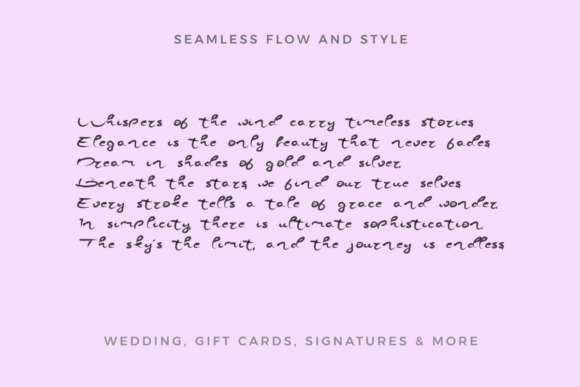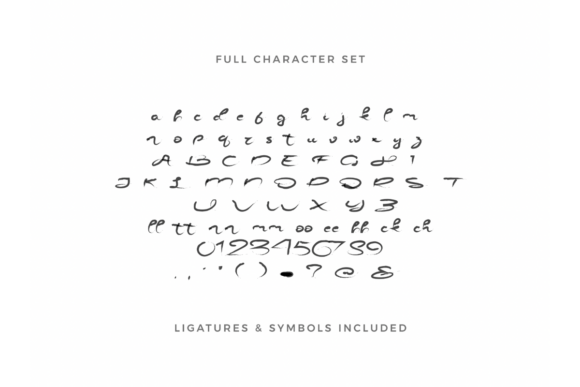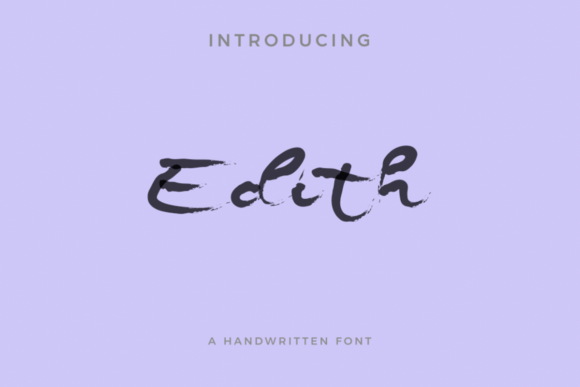
Discover the Charm of Edith Font: A Captivating Handwritten Script Font
Are you tired of using the same old fonts for your designs? Look no further than Edith Font, a beautiful handwritten script font that is sure to add a touch of elegance and charm to any project. With its unique and inviting aura, Edith Font is the perfect choice for designers and crafters looking to create something truly special.
The Story Behind Edith Font
Edith Font is a hand-lettered masterpiece that has been carefully crafted to bring a warm and inviting feel to any design. The font’s creator has poured their heart and soul into every stroke, resulting in a truly unique and delightful script font that is sure to capture the attention of your audience.
What Sets Edith Font Apart
So, what makes Edith Font so special? For starters, its hand-lettered design gives it a personal and intimate feel that is hard to replicate with digital fonts. The lovingly designed strokes of Edith Font bring a sense of warmth and personality to any design, making it perfect for projects that require a touch of elegance and sophistication.
Features of Edith Font
• Handwritten Script Font: Edith Font is a true handwritten script font, with each letter carefully crafted to create a unique and inviting aura.
• Unique and Delightful: With its hand-lettered design, Edith Font is a true one-of-a-kind font that is sure to add a touch of personality to any design.
• Warm and Inviting: The lovingly designed strokes of Edith Font bring a sense of warmth and personality to any design, making it perfect for projects that require a touch of elegance and sophistication.
• Elegant and Sophisticated: Edith Font is the perfect choice for designers and crafters looking to create something truly special and eye-catching.
Uses for Edith Font
Edith Font is a versatile font that can be used for a wide range of projects, including:
• Wedding Invitations: Add a touch of elegance and sophistication to your wedding invitations with Edith Font.
• Branding and Packaging: Use Edith Font to create unique and eye-catching branding and packaging for your business.
• Stationery and Cards: Add a personal touch to your stationery and cards with Edith Font.
• Digital Designs: Use Edith Font to add a touch of personality to your digital designs, such as social media graphics and website headers.
Tips for Using Edith Font
Here are a few tips for getting the most out of Edith Font:
• Use it Sparingly: Edith Font is a statement font, so use it sparingly to add emphasis and personality to your designs.
• Experiment with Colors: Try pairing Edith Font with different colors to create a unique and eye-catching look.
• Mix and Match: Don’t be afraid to mix and match Edith Font with other fonts to create a unique and interesting look.
Edith Font is a truly unique and captivating handwritten script font that is sure to add a touch of elegance and charm to any design. With its hand-lettered design and lovingly crafted strokes, Edith Font is the perfect choice for designers and crafters looking to create something truly special. Whether you’re looking to add a personal touch to your stationery, create eye-catching branding and packaging, or simply add a touch of personality to your digital designs, Edith Font is the perfect choice.
Get Ready to Fall in Love with Edith Font